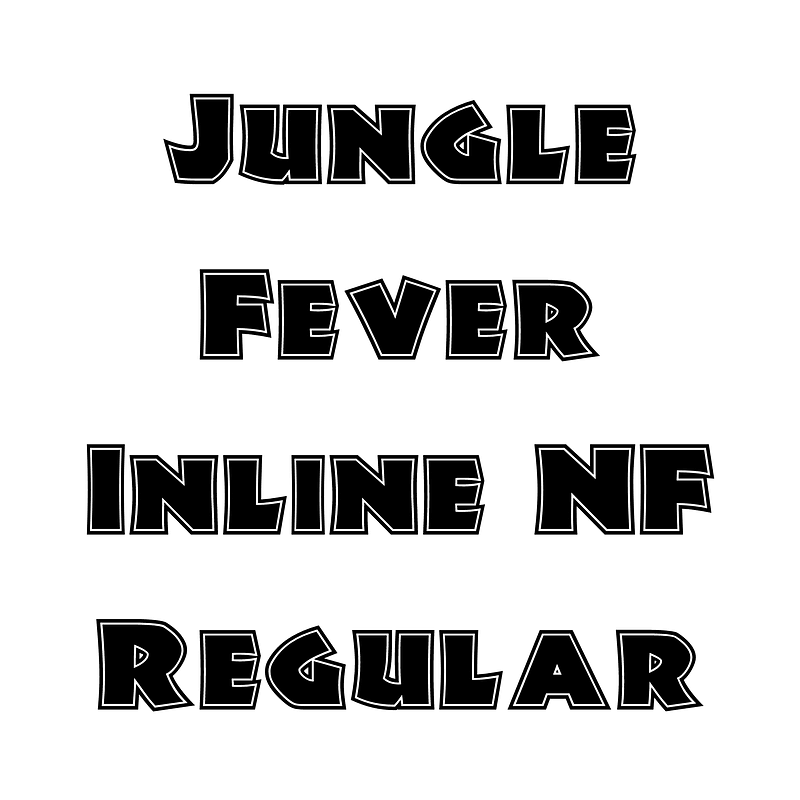
Jungle Fever Nf Font . Download and install the jungle fever nf font for free from ffonts.net. Free download of jungle fever font family with 3 styles. Released in 1999 by nick's fonts and licensed for personal and. ️ this font has been downloaded 7,000+ times. Jungle fever à € by nick's fonts. Complete pack contains 3 font weights listed below:. Comic) font, perfect for creative projects. Preview and customize it instantly to enhance your designs with a unique and professional. Download the jungle fever nf (category fancy : Complete pack contains 3 font weights listed below: Directiononly strongly left to right glyphs. 339,852 downloads (37 yesterday) 2 comments 100% free. Download free fonts for windows and macintosh. Fonts2u offers a large collection of free fonts. Download jungle fever font family · free for commercial use · a new take on the classic font neuland, designed by rudolph koch in.
Download the jungle fever nf (category fancy : Fonts2u offers a large collection of free fonts. Comic) font, perfect for creative projects. Jungle fever à € by nick's fonts. Directiononly strongly left to right glyphs. Preview and customize it instantly to enhance your designs with a unique and professional. Complete pack contains 3 font weights listed below: Download jungle fever font family · free for commercial use · a new take on the classic font neuland, designed by rudolph koch in. Free download of jungle fever font family with 3 styles. Download and install the jungle fever nf font for free from ffonts.net.
Jungle Fever Font by Freebies · Creative Fabrica
Jungle Fever Nf Font Directiononly strongly left to right glyphs. Free download of jungle fever font family with 3 styles. ️ this font has been downloaded 7,000+ times. Fonts2u offers a large collection of free fonts. Complete pack contains 3 font weights listed below: Preview and customize it instantly to enhance your designs with a unique and professional. Jungle fever à € by nick's fonts. Download free fonts for windows and macintosh. Comic) font, perfect for creative projects. Download the jungle fever nf (category fancy : 339,852 downloads (37 yesterday) 2 comments 100% free. Download and install the jungle fever nf font for free from ffonts.net. Download jungle fever font family · free for commercial use · a new take on the classic font neuland, designed by rudolph koch in. Released in 1999 by nick's fonts and licensed for personal and. Directiononly strongly left to right glyphs. Complete pack contains 3 font weights listed below:.
Jungle Fever Inline NF Regular font Free fonts on Creazilla Jungle Fever Nf Font Released in 1999 by nick's fonts and licensed for personal and. Complete pack contains 3 font weights listed below: Comic) font, perfect for creative projects. Download jungle fever font family · free for commercial use · a new take on the classic font neuland, designed by rudolph koch in. Jungle fever à € by nick's fonts. Download and install the. Jungle Fever Nf Font.
FEVER Font Download For Free, View Sample Text, Rating And More On Jungle Fever Nf Font Fonts2u offers a large collection of free fonts. Jungle fever à € by nick's fonts. Download the jungle fever nf (category fancy : Download jungle fever font family · free for commercial use · a new take on the classic font neuland, designed by rudolph koch in. Comic) font, perfect for creative projects. Preview and customize it instantly to enhance. Jungle Fever Nf Font.
Jungle Fever NF font Jungle Fever Nf Font Complete pack contains 3 font weights listed below: Complete pack contains 3 font weights listed below:. Download and install the jungle fever nf font for free from ffonts.net. Comic) font, perfect for creative projects. Preview and customize it instantly to enhance your designs with a unique and professional. Download jungle fever font family · free for commercial use · a. Jungle Fever Nf Font.
Jungle Fever Inline NF Font Download For Free, View Sample Text Jungle Fever Nf Font Download jungle fever font family · free for commercial use · a new take on the classic font neuland, designed by rudolph koch in. Released in 1999 by nick's fonts and licensed for personal and. Download the jungle fever nf (category fancy : Comic) font, perfect for creative projects. Download and install the jungle fever nf font for free from. Jungle Fever Nf Font.
Jungle Juice Font in truetype .ttf opentype .otf format free and easy Jungle Fever Nf Font Fonts2u offers a large collection of free fonts. Download free fonts for windows and macintosh. Download and install the jungle fever nf font for free from ffonts.net. Released in 1999 by nick's fonts and licensed for personal and. Jungle fever à € by nick's fonts. Download the jungle fever nf (category fancy : Complete pack contains 3 font weights listed. Jungle Fever Nf Font.
Urban Jungle Font Free Download for Pixellab 2024 (100 Working Jungle Fever Nf Font Released in 1999 by nick's fonts and licensed for personal and. Download and install the jungle fever nf font for free from ffonts.net. Jungle fever à € by nick's fonts. Complete pack contains 3 font weights listed below:. Fonts2u offers a large collection of free fonts. Preview and customize it instantly to enhance your designs with a unique and professional.. Jungle Fever Nf Font.